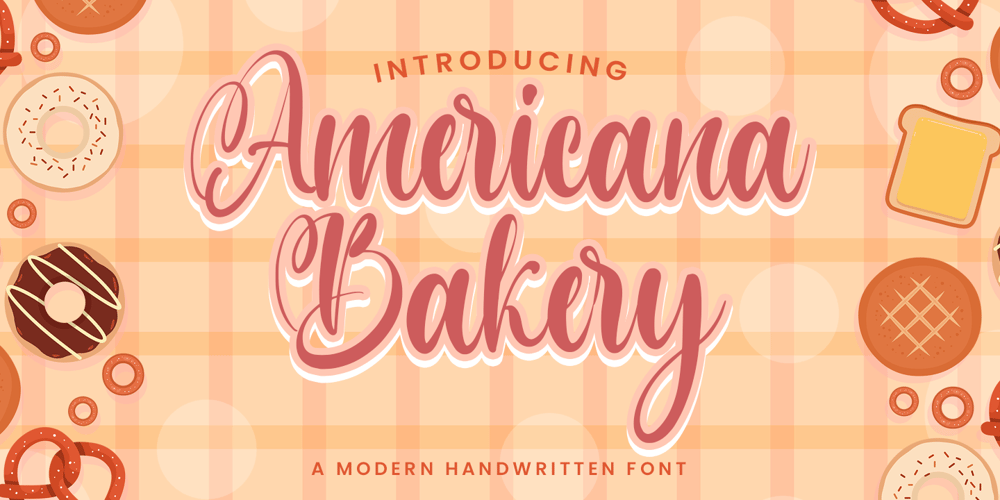
Americana Bakery Font Family was designed by Abdul Malik Wisnu and published by Almarkha Type. Americana Bakery contains 1 styles and family package options. Americana Bakery font with a Modern Script perfect for any creative design. This handmade font will make your design has a beautiful natural touch for each details.This font is PUA encoded which means you can access all of the magical glyphs and swashes with ease! It also features a wealth of special features including alternate glyphs and ligatures.